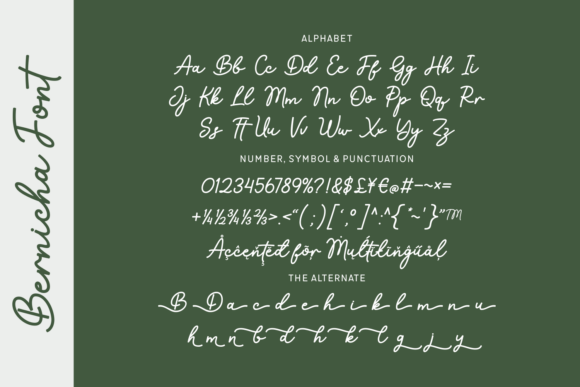
Bernicha Font: Elevate Your Design with Elegance and Sophistication
In the world of typography, fonts play a crucial role in conveying the tone and personality of a brand or design. Among the numerous fonts available, Bernicha stands out as a sleek monoline script font that exudes elegance and sophistication. With its smooth and clean design, Bernicha is perfect for a wide range of applications, from logos and branding to wedding stationery and minimalist creative projects.
The Characteristics of Bernicha Font
Bernicha is a modern script font that boasts a unique blend of elegance and approachability. Its key features include:
- Elegant Swashes: Bernicha’s swashes add a touch of sophistication to any design, making it perfect for high-end branding and luxury products.
- Monoline Script: The font’s monoline script style gives it a clean and modern look, ideal for designs that require a sleek and contemporary feel.
- Contemporary Charm: Bernicha’s design is deeply rooted in modern typography, making it an excellent choice for brands and designers looking for a fresh and current aesthetic.
Perfect for a Variety of Applications
Bernicha’s versatility makes it an excellent choice for a wide range of applications, including:
Logos and Branding
A well-designed logo is essential for any brand, and Bernicha provides the perfect combination of elegance and sophistication. Its smooth and clean design makes it ideal for creating logos that require a high-end feel.
Wedding Stationery
Wedding stationery is a great way to showcase a couple’s personal style, and Bernicha’s elegant swashes and monoline script make it perfect for wedding invitations, save-the-date cards, and other stationery.
Minimalist Creative Projects
Bernicha’s clean design makes it an excellent choice for minimalist creative projects, such as social media graphics, product packaging, and editorial design.
Print and Digital Formats
One of the significant advantages of Bernicha is its ability to work beautifully in both print and digital formats. Whether you’re designing a brochure, business card, or social media graphic, Bernicha’s smooth and clean design ensures that your message is conveyed with elegance and sophistication.
Adding a Touch of Modern Elegance
In today’s competitive design landscape, it’s essential to stand out from the crowd. Bernicha provides a unique and modern aesthetic that adds a touch of elegance to any design. Whether you’re designing for luxury brands, wedding stationery, or minimalist creative projects, Bernicha is the perfect choice.
Why Choose Bernicha?
With so many fonts available, why choose Bernicha? Here are a few reasons:
- Unique Design: Bernicha’s monoline script and elegant swashes make it a unique and distinctive font that sets it apart from other fonts.
- Versatility: Bernicha’s versatility makes it perfect for a wide range of applications, from logos and branding to wedding stationery and minimalist creative projects.
- Elegance and Sophistication: Bernicha’s smooth and clean design exudes elegance and sophistication, making it perfect for high-end branding and luxury products.
In conclusion, Bernicha is a sleek monoline script font that offers a unique blend of elegance and sophistication. Its smooth and clean design makes it perfect for a wide range of applications, from logos and branding to wedding stationery and minimalist creative projects. With its versatility and modern aesthetic, Bernicha is an excellent choice for designers and brands looking to elevate their design with elegance and sophistication.
Specification of Bernicha Font
| Font Type | Monoline Script Font |
|---|---|
| Font Style | Sleek, Elegant, and Sophisticated |
| Best Use for | Logos, Branding, Wedding Stationery, Minimalist Creative Projects |